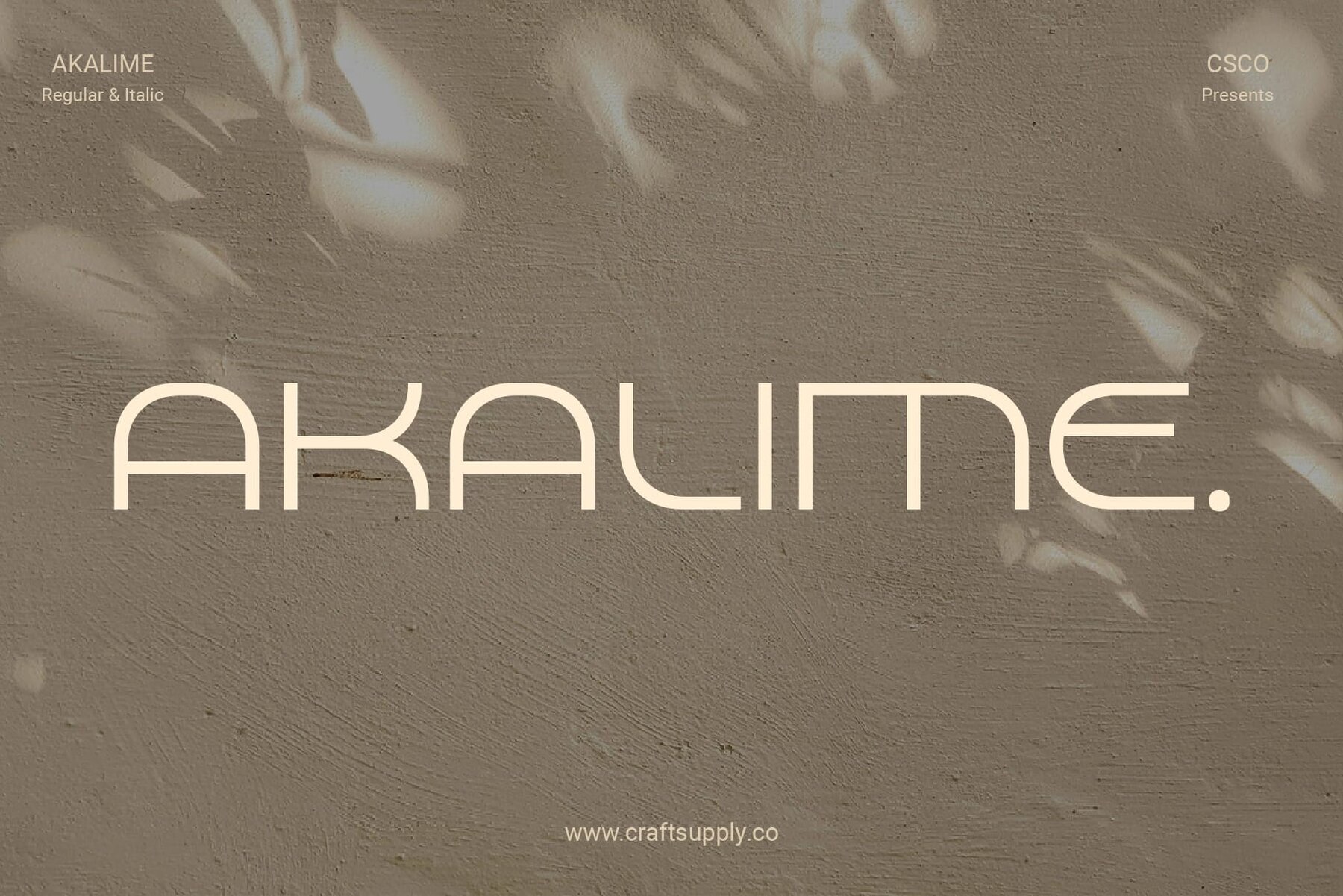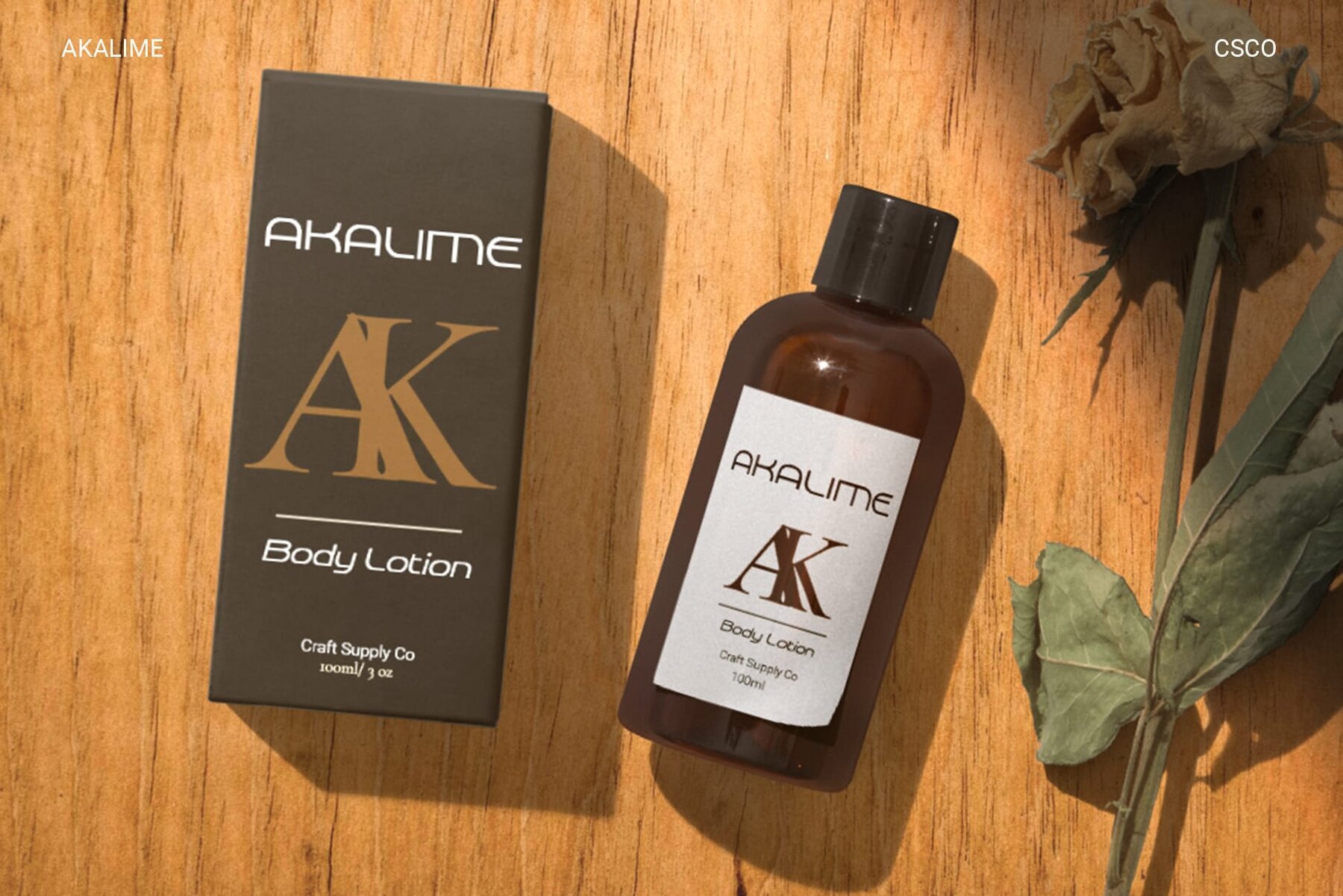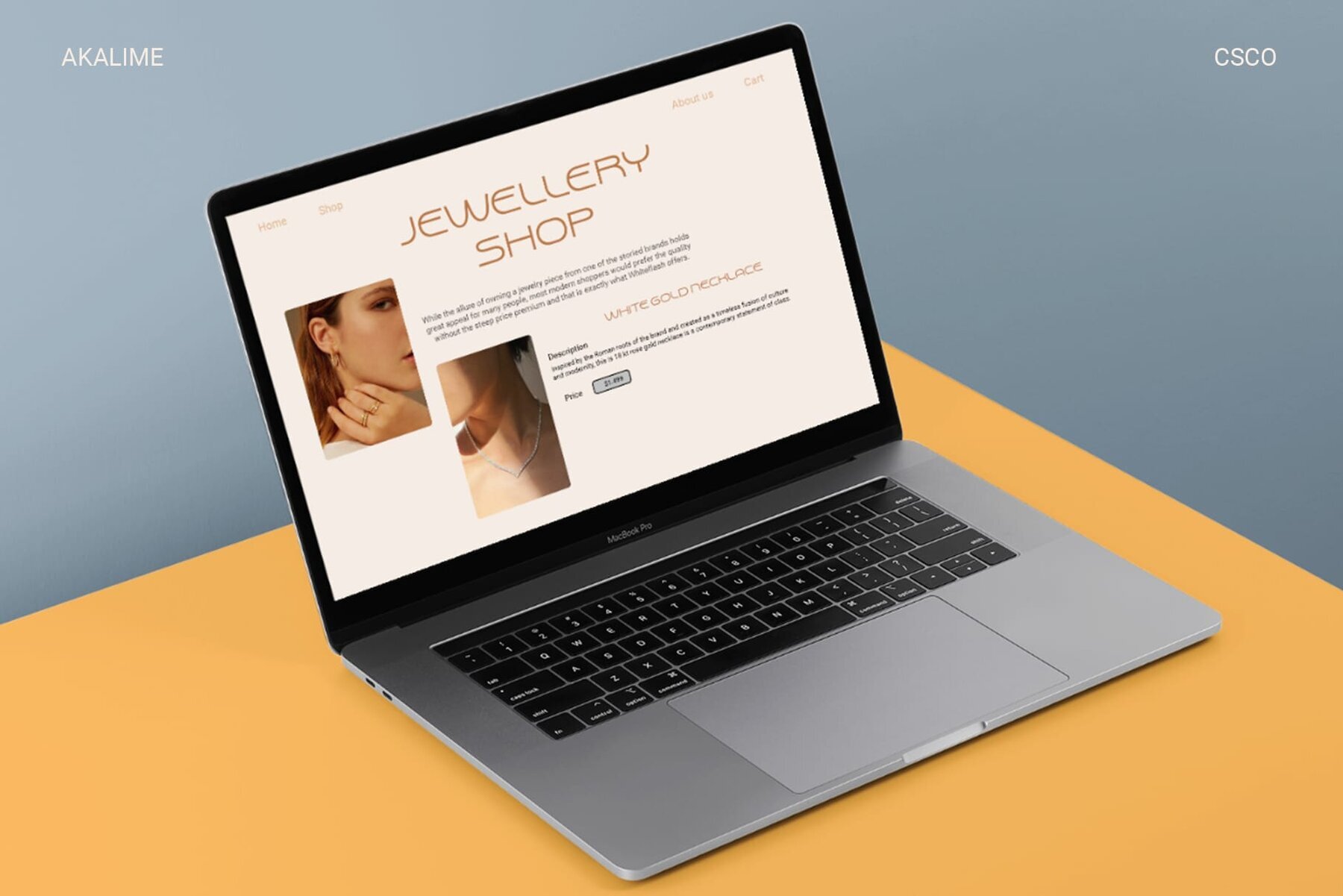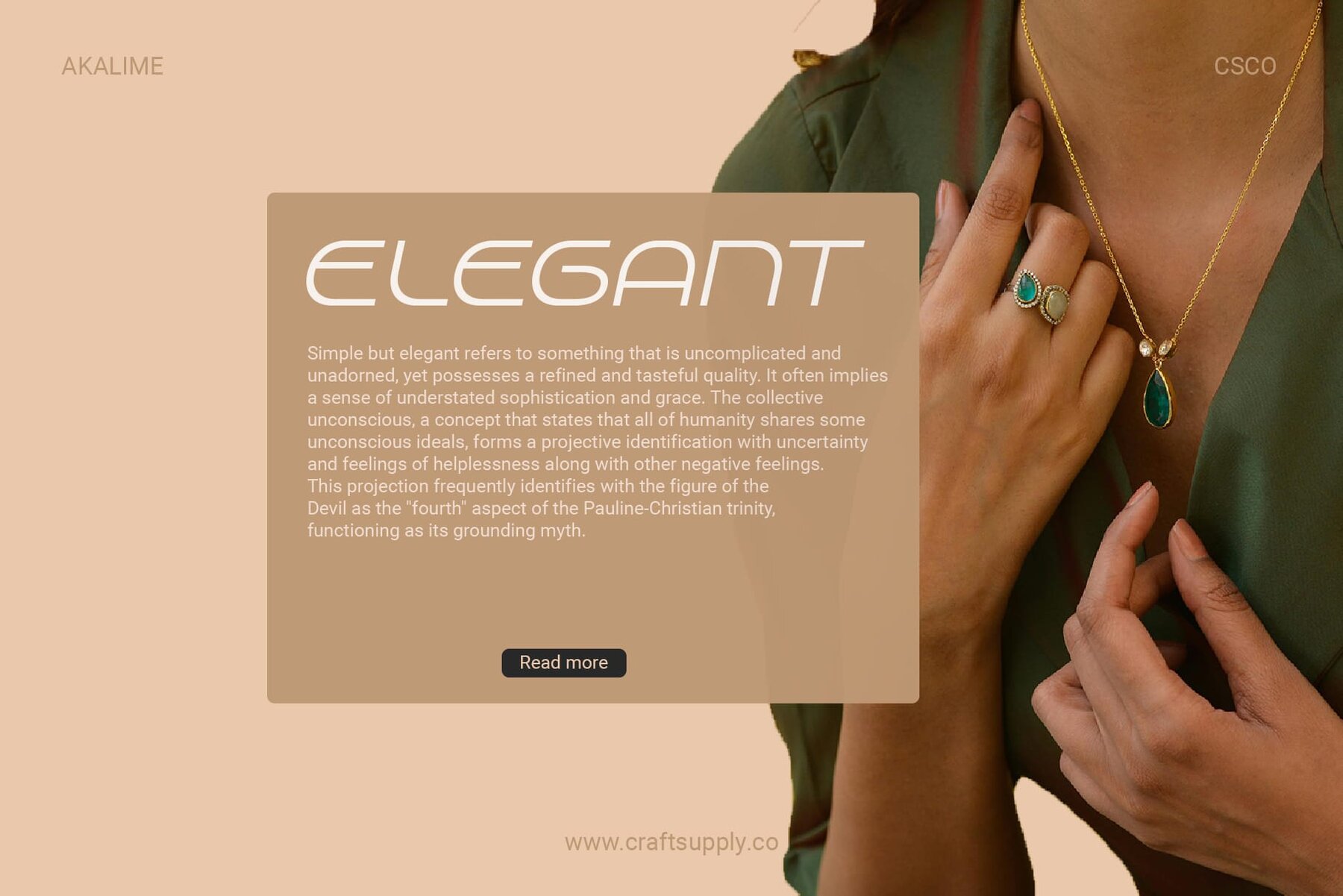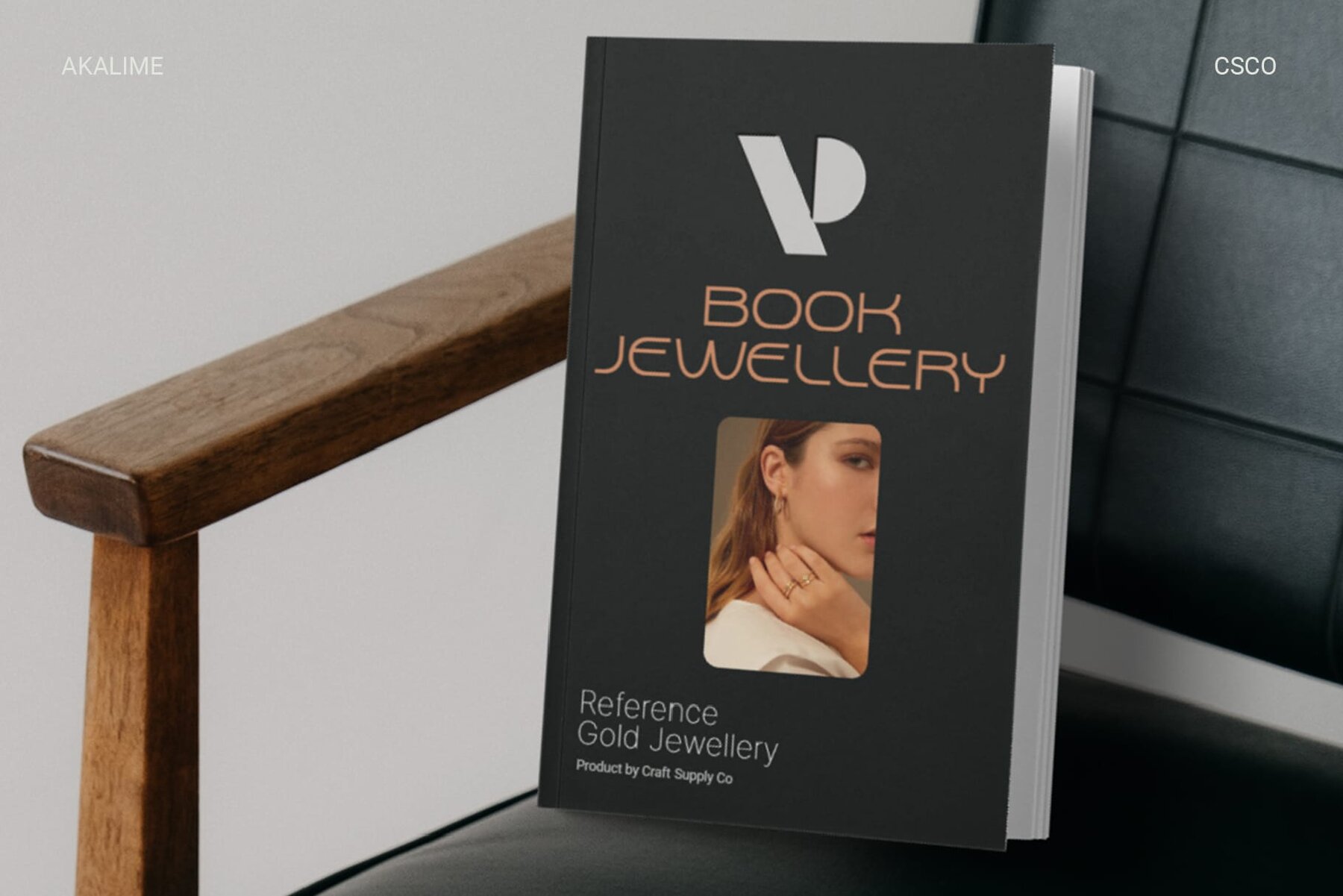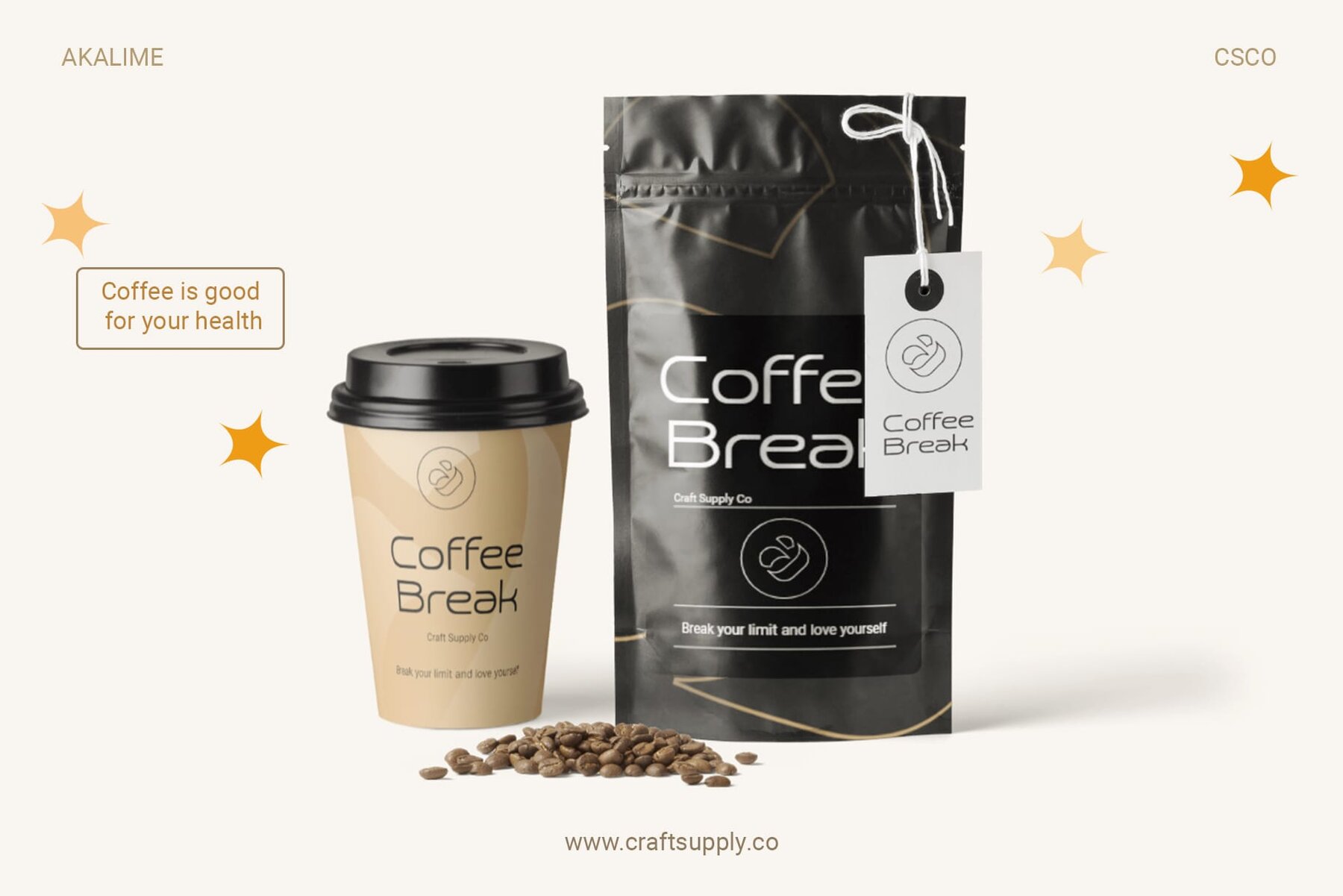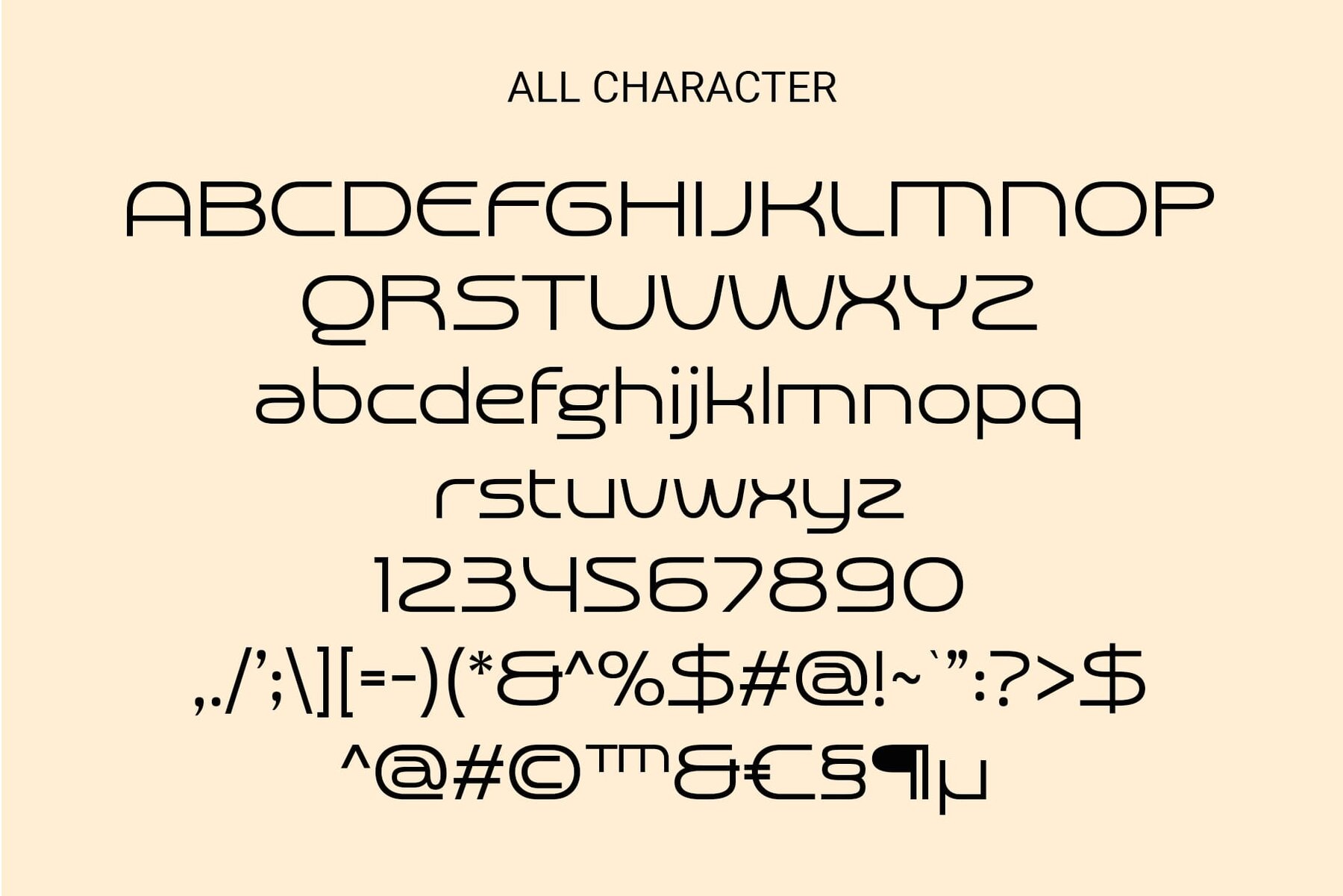
Akalime Font
Sleek Monoline Aesthetics Akalime introduces a sleek monoline sans serif design, establishing a seamless and contemporary visual appeal that aligns with modern design sensibilities. This font goes beyond the ordinary, unveiling futuristic nuances that elevate it to a cutting-edge choice for those seeking a glimpse into design's future. Akalime's modernity and futurism make it an ideal choice across various mediums—whether digital interfaces, print materials, or branding, it adds a touch of innovation. More than just letters, Akalime becomes a creative tool, empowering designers to infuse modern and futuristic vibes effortlessly into their projects. Akalime isn't just a font; it's a portal to tomorrow's design. With its monoline elegance and futuristic undertones, it bridges the present to the future, offering endless possibilities for design exploration. This typeface can be used without specialized software. If you have any inquiries or need assistance, please feel free to contact us. We appreciate your support in enhancing your creative projects!Akalime Font: Seamlessly Merging Modernity and Futurism
Futuristic Nuances
Versatility Across Mediums
Unleashing Creative Potential
A Glimpse into Tomorrow